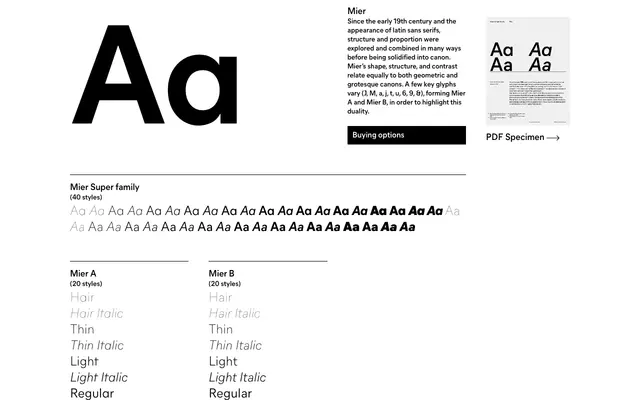
Mier specimen from General Type Studio
A 40-style superfamily that splits into two subfamilies, Mier A and Mier B, each using alternate key glyphs to articulate the typeface's position between geometric and grotesque traditions.
Ten weights from Hair to Black, each with italics, are duplicated across the A and B subfamilies, which differ in a handful of characters including J, M, a, t, u and the ampersand. This glyph-level distinction lets the two variants occupy subtly different tonal registers while sharing the same underlying structure and proportions. The result is a versatile text and display family that can shift between warmth and neutrality depending on which subfamily is chosen.
Mier sits between geometric and grotesque canons, deliberately drawing on both traditions rather than committing to either. The foundry describes this duality as structural to the design, with alternate glyph sets (A and B) making the distinction explicit.